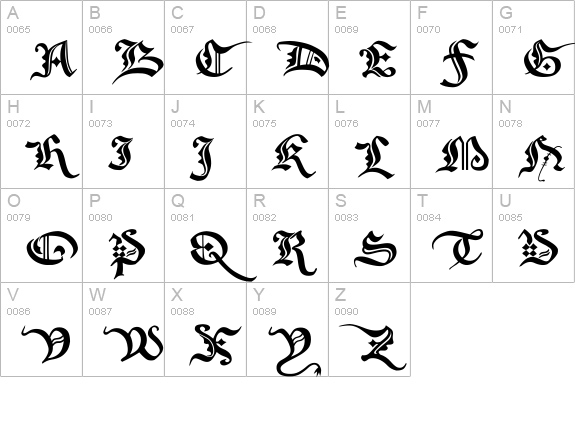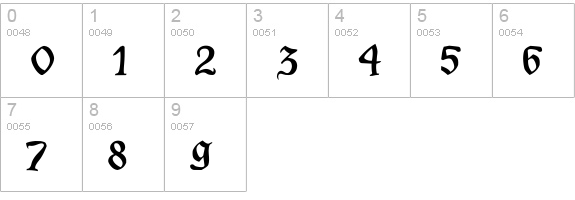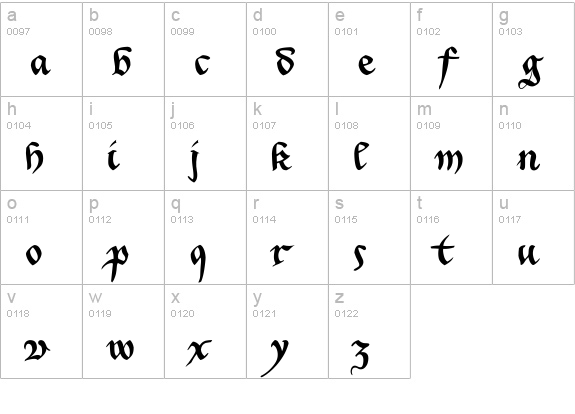
Xenippa Font Details
Xenippa font is a stunning display typeface that exudes elegance and sophistication. With its clean lines and intricate details, Xenippa is perfect for adding a touch of class to any design project. Whether you're creating invitations, logos, or posters, this font is sure to make a bold statement. The best part about Xenippa font is that it is completely free! You can easily download it from FontsMarket.com and start using it in your projects right away. Don't miss out on this amazing opportunity to elevate your designs with the timeless beauty of Xenippa font.